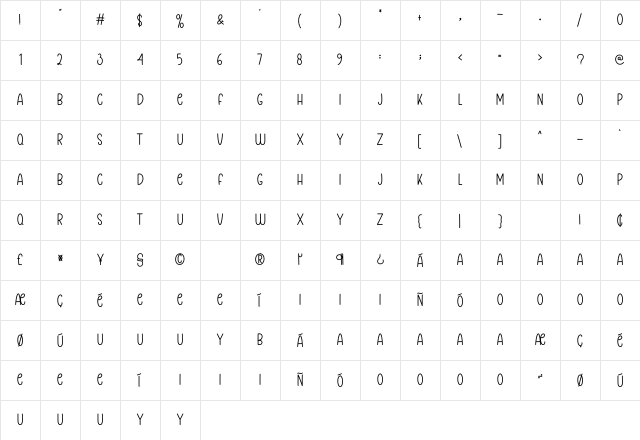
Babe Chubby Regular
Design Context for Babe Chubby
Babe Chubby is a composed and adaptable typeface that performs quietly and consistently across a wide range of design contexts.